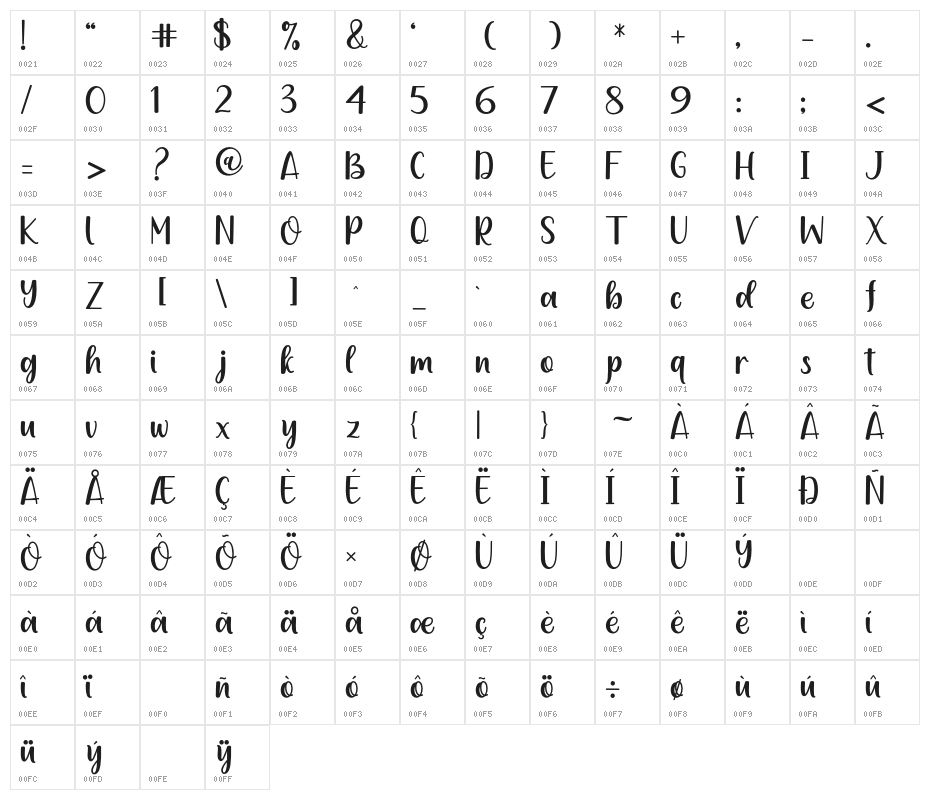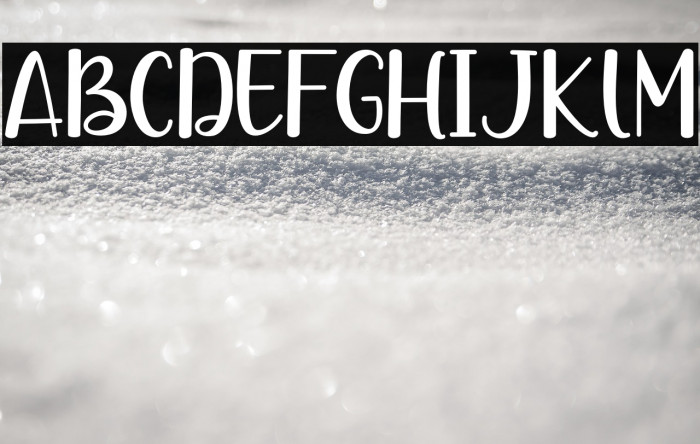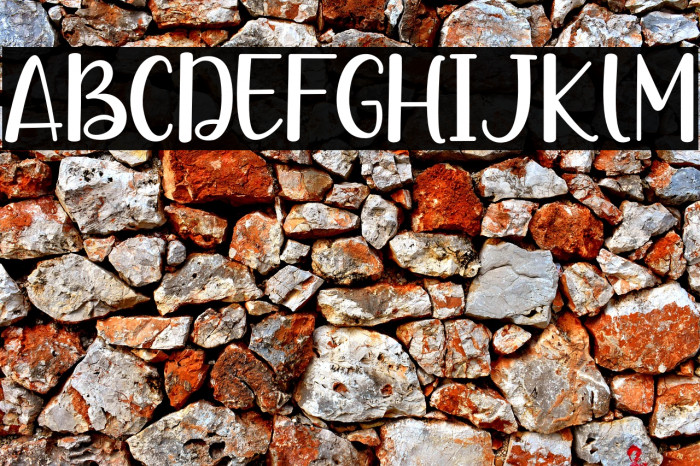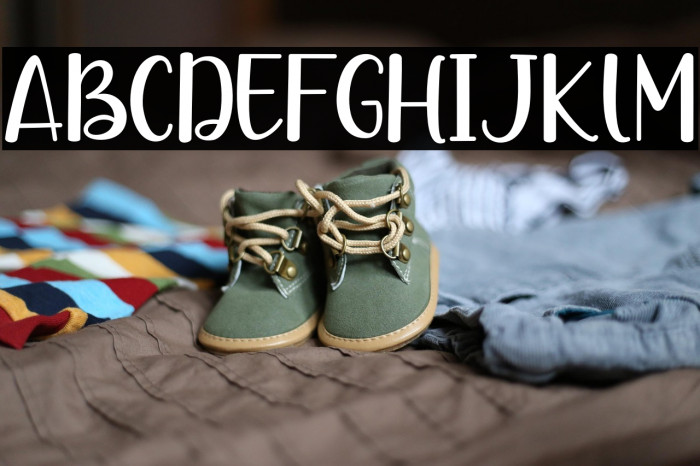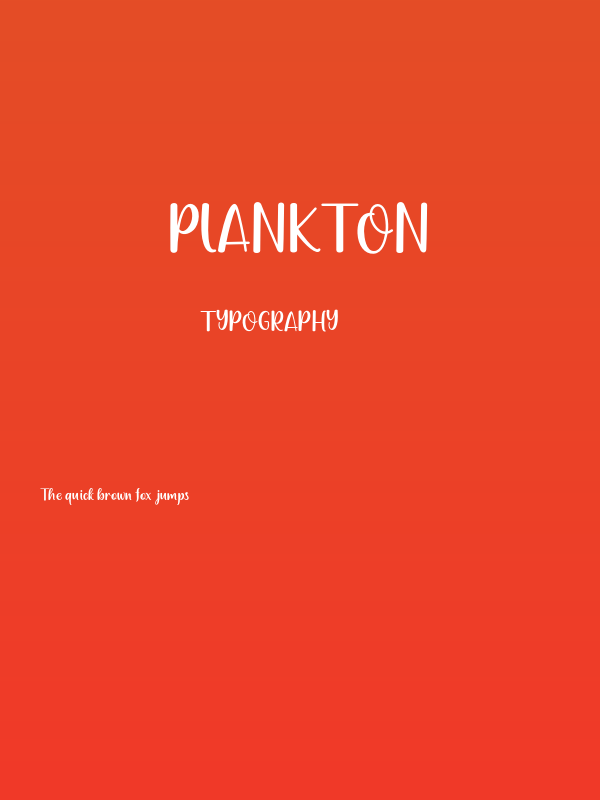
plankton Font
plankton Description
This font showcases a playful and whimsical style, characterized by its handwritten appearance. The uppercase letters are bold and slightly condensed, with a mix of straight and curved lines that add a dynamic feel. The lowercase letters maintain a consistent flow, with rounded edges and a casual, friendly demeanor. Numbers are clear and legible, following the same playful style. Special characters are creatively designed, fitting seamlessly with the overall aesthetic. The font's unique charm makes it suitable for projects that require a personal touch, such as invitations, greeting cards, or playful branding.
| Overall Style | Whimsical |
| Proposed Projects | Ideal for invitations, greeting cards, playful branding, and creative projects. |